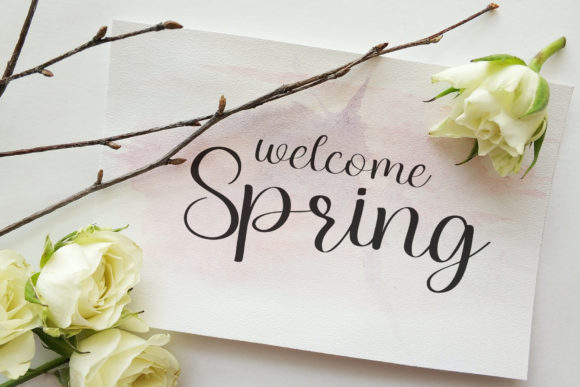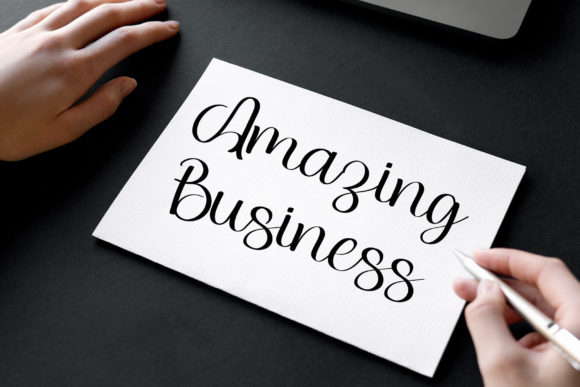
Breaking Font
db-ku.com - Script & Handwritten -- Breaking is an elegant handwritten font. It will certainly bring a loving touch to your craft or design project. This gentle font will look gorgeous on a variety of design ideas.